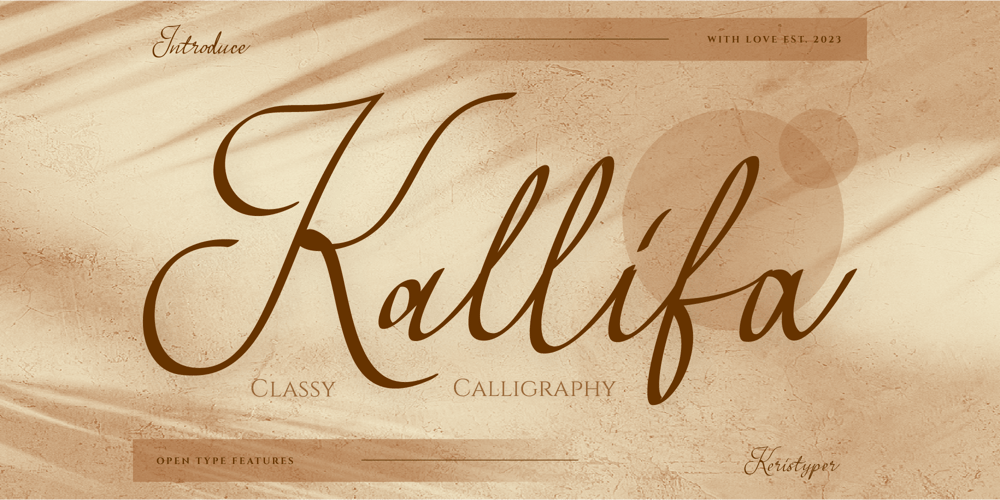
Kallifa
Kallifa font
Kallifa Font Family was designed by Tezar Tantular and published by Keristyper Studio. Kallifa contains 1 styles and family package options. Introducing Kallifa script font is classy calligraphy inspired by old-school classic vintage handwritten. This font is good for logo design, Social media, Movie Titles, Books Titles, short text even long text letters, and good for your secondary text font with the script, sans, or serif.Featured: Standard Uppercase & Lowercase Numeral & Punctuation Multilingual : ä ö ü Ä Ö Ü ß ¿ ¡ Alternate & Ligature PUA encoded We recommend programs that support the OpenType feature and the Glyphs panel such as Adobe applications or Corel Draw. so you can use all the variations of the glyphs.Hope you enjoy our fonts!